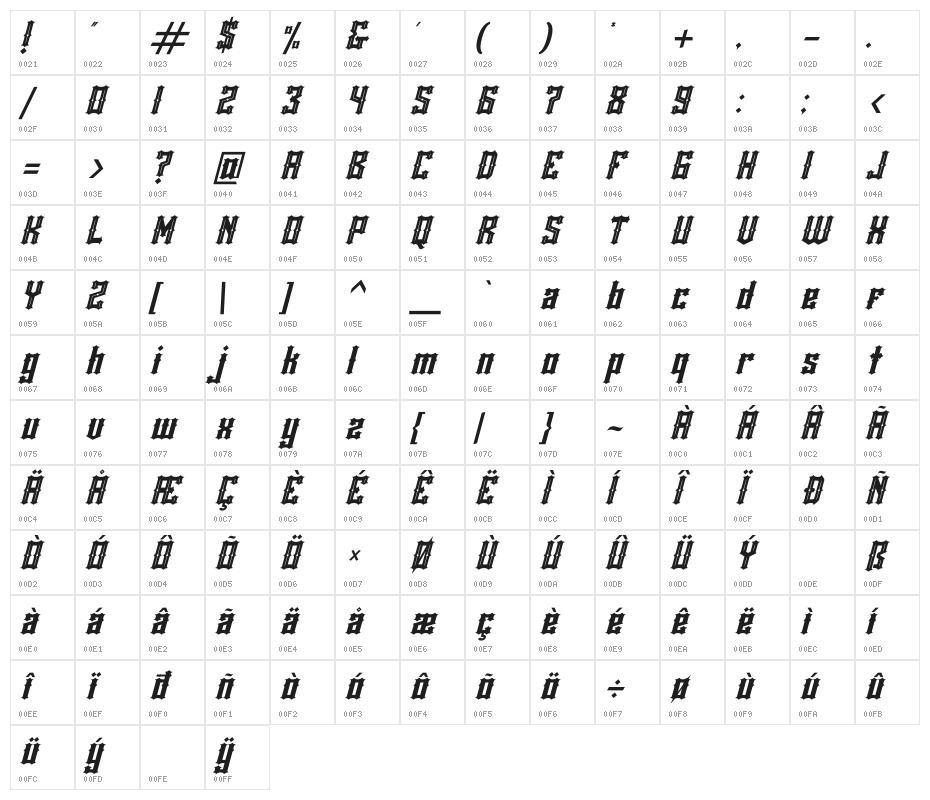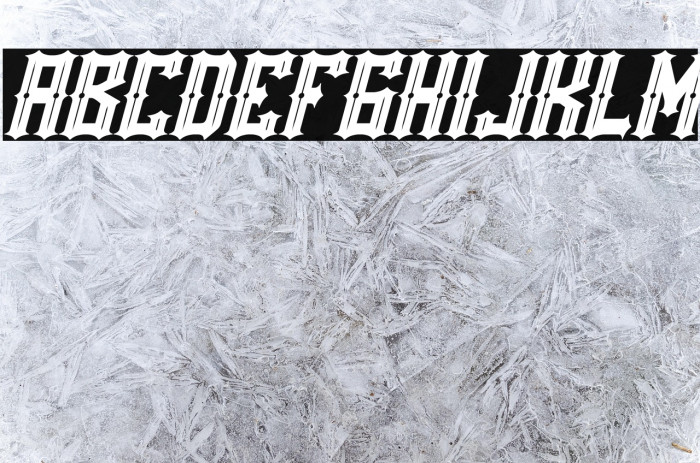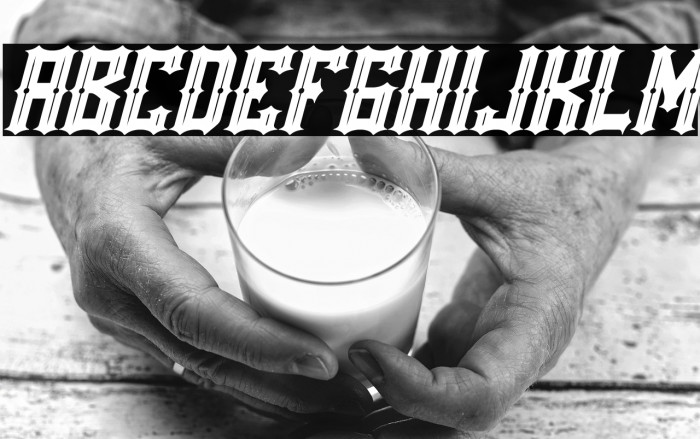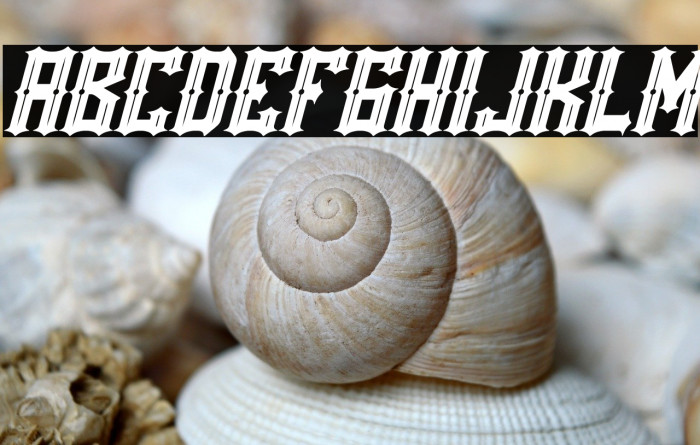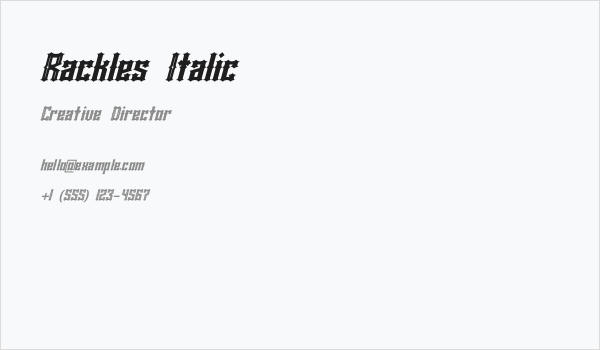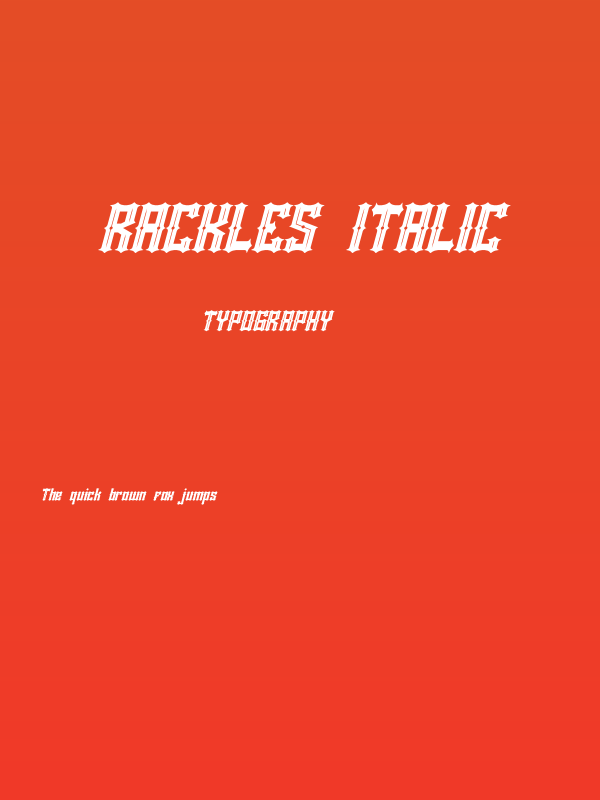
Rackles Italic Font
Rackles Italic Description
This font features a bold, angular design with a distinct italic slant, giving it a dynamic and aggressive appearance. The characters are heavily stylized with sharp edges and pointed serifs, reminiscent of gothic or medieval script. The uppercase and lowercase letters maintain a consistent style, with the lowercase being slightly more compact. Numbers and special characters follow the same bold and edgy aesthetic, ensuring uniformity across all glyphs. The overall look is striking and commands attention, making it suitable for impactful designs.